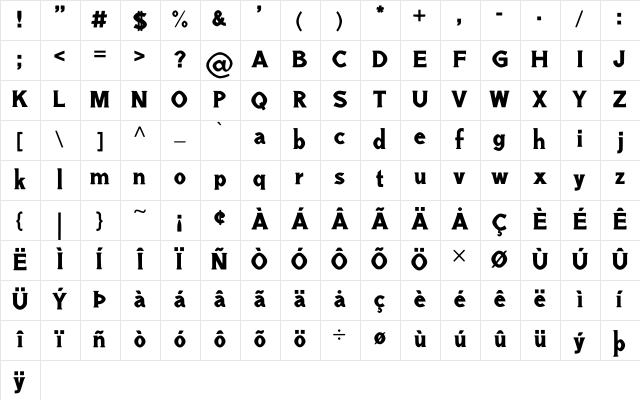
Gresan - Personal Use Only Regular Font Preview
Gresan - Personal Use Only Regular
Gresan - Personal Use Only Regular Font Details
Design Context for Gresan - Personal Use Only Typeface
Gresan - Personal Use Only takes a measured approach to typography — its balanced proportions and neutral character make it a reliable workhorse for both digital and print work.